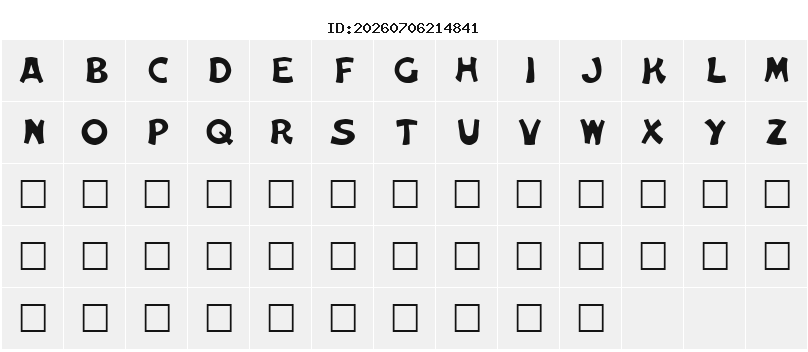
Dellmond Plain Preview
• Font Name: Dellmond Plain
• Full Font Name: Dellmond Plain
• PostScript Name: Dellmond-Plain
• Character Count: 36
About Dellmond Plain.ttf
Dellmond Plain.ttf is a modern, elegant sans-serif font designed for ultimate readability and visual harmony. Perfect for branding, headlines, web design, and print materials.